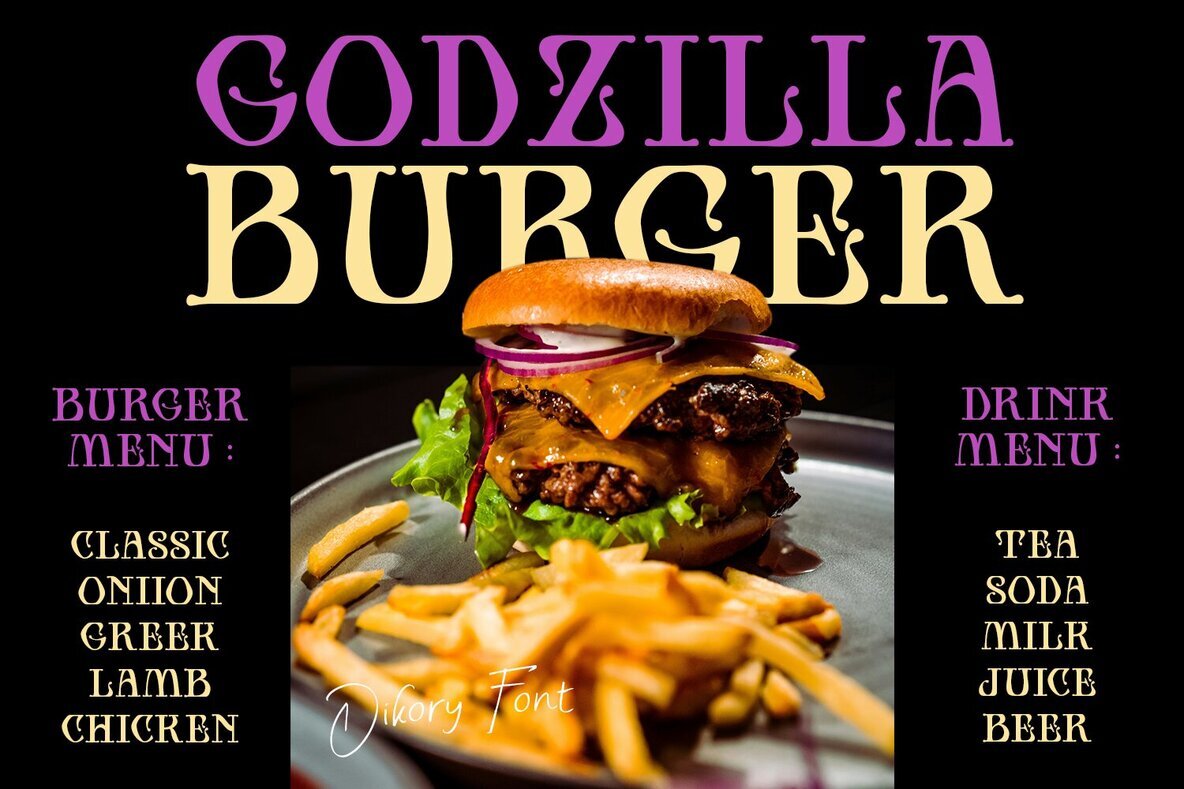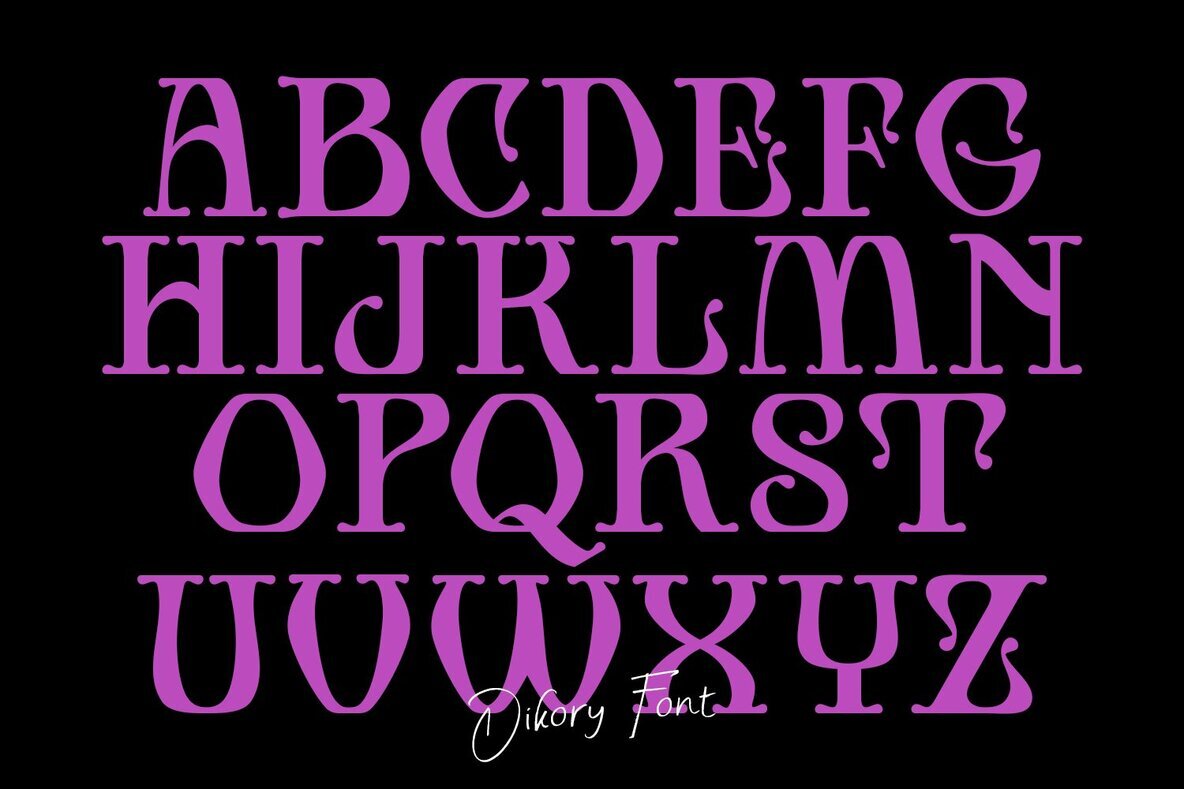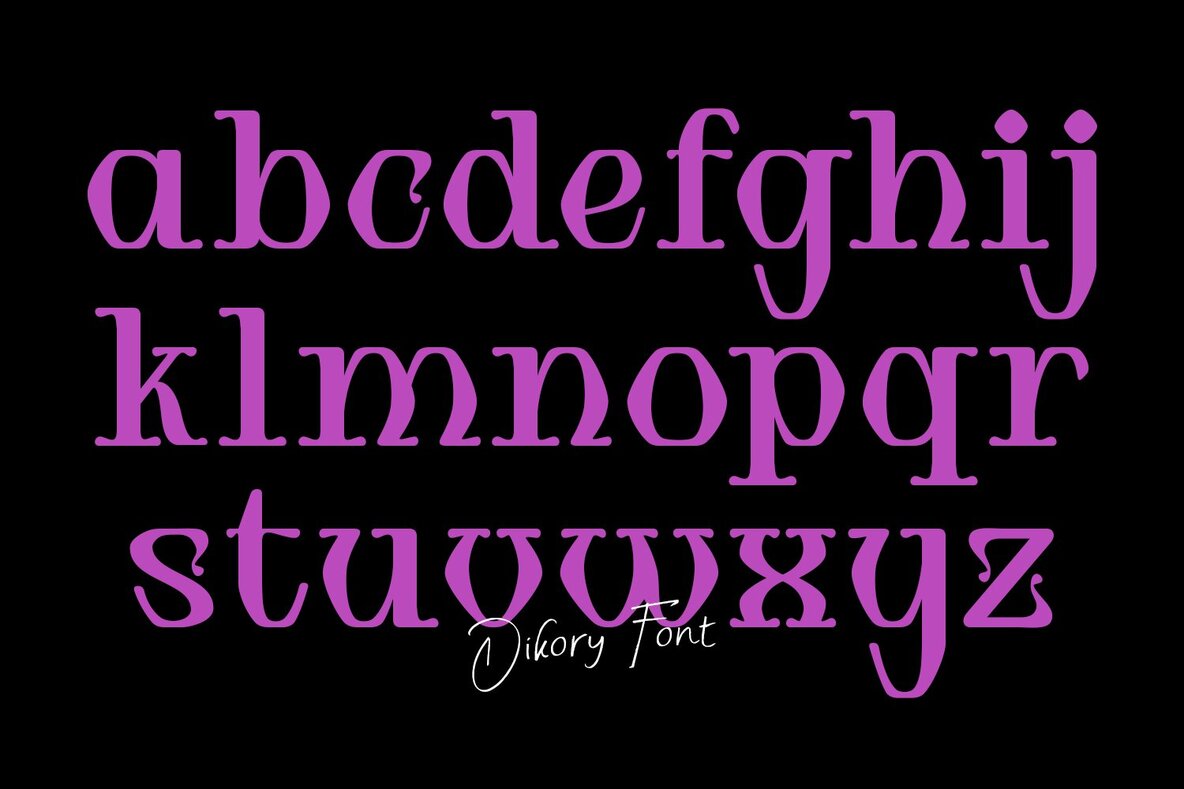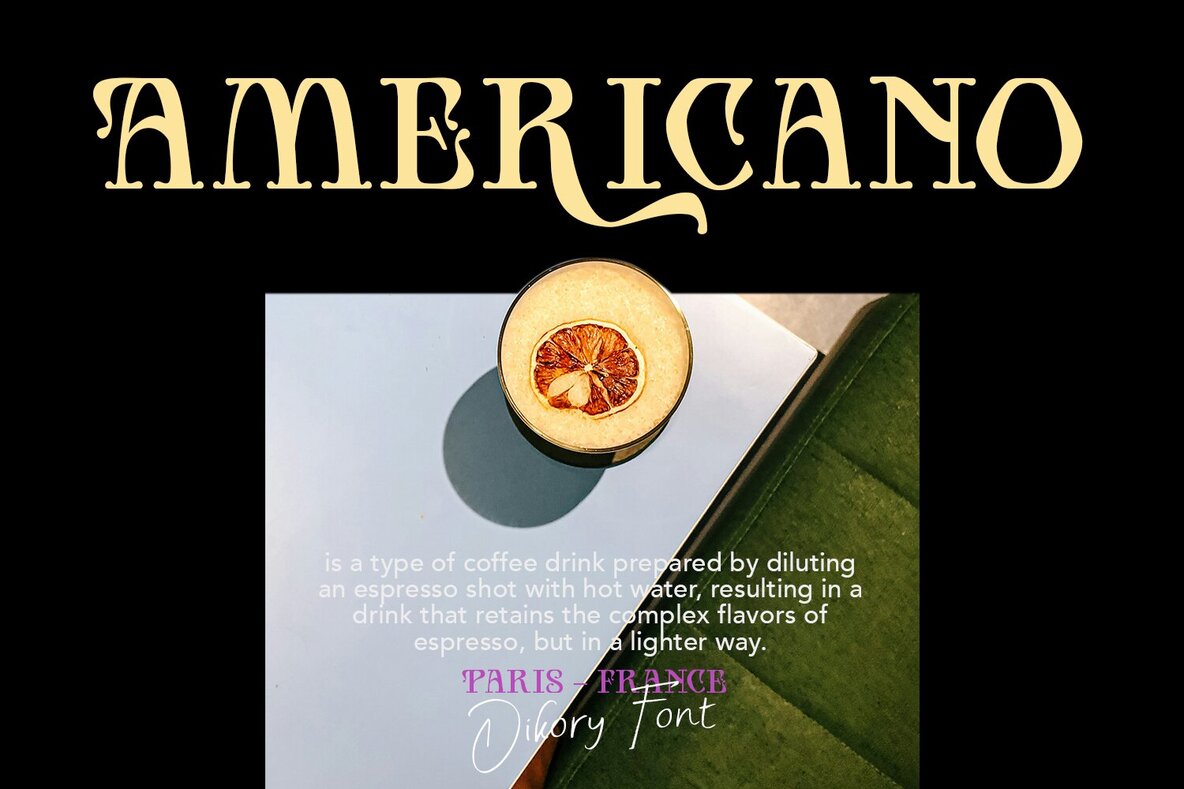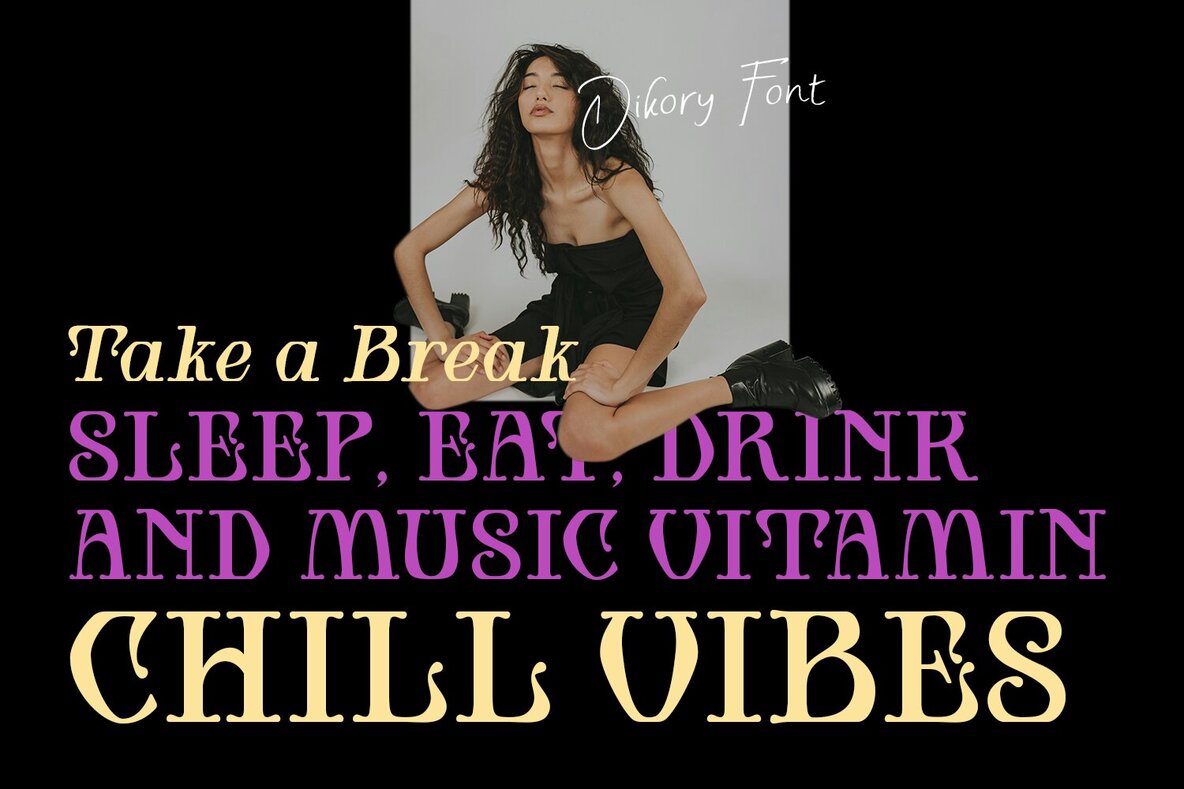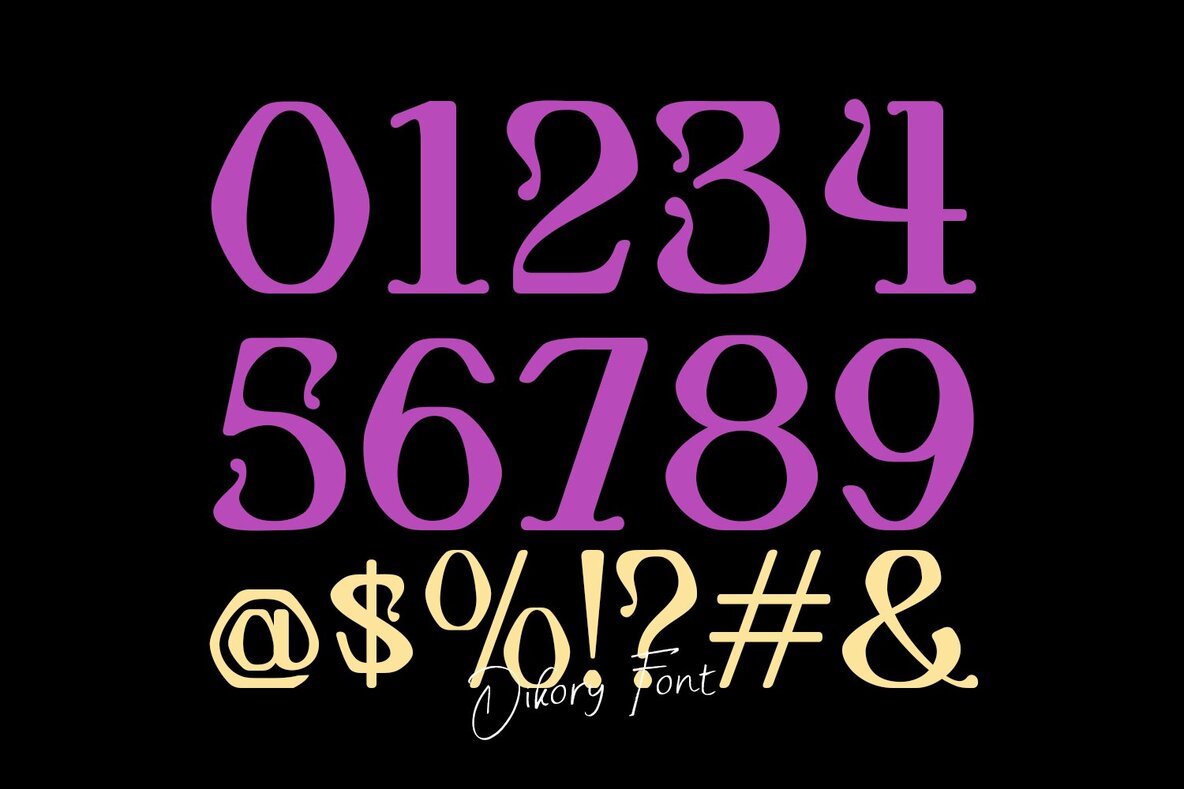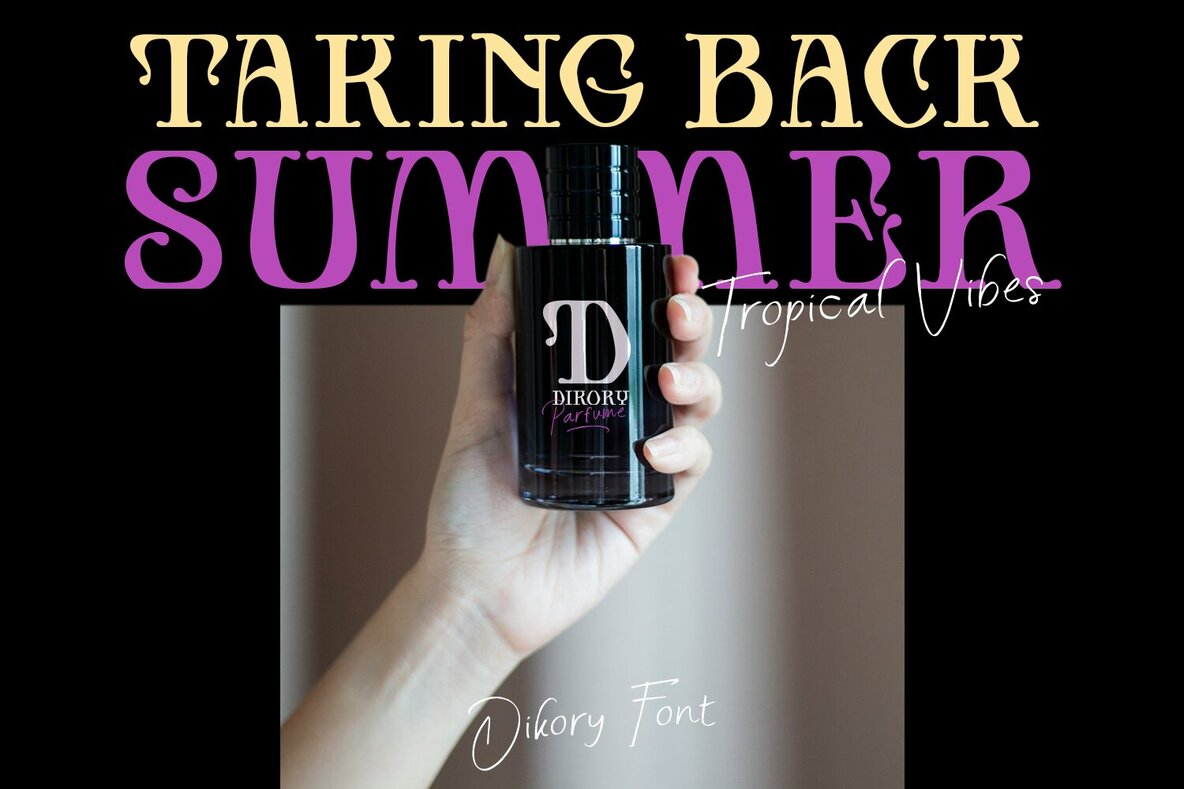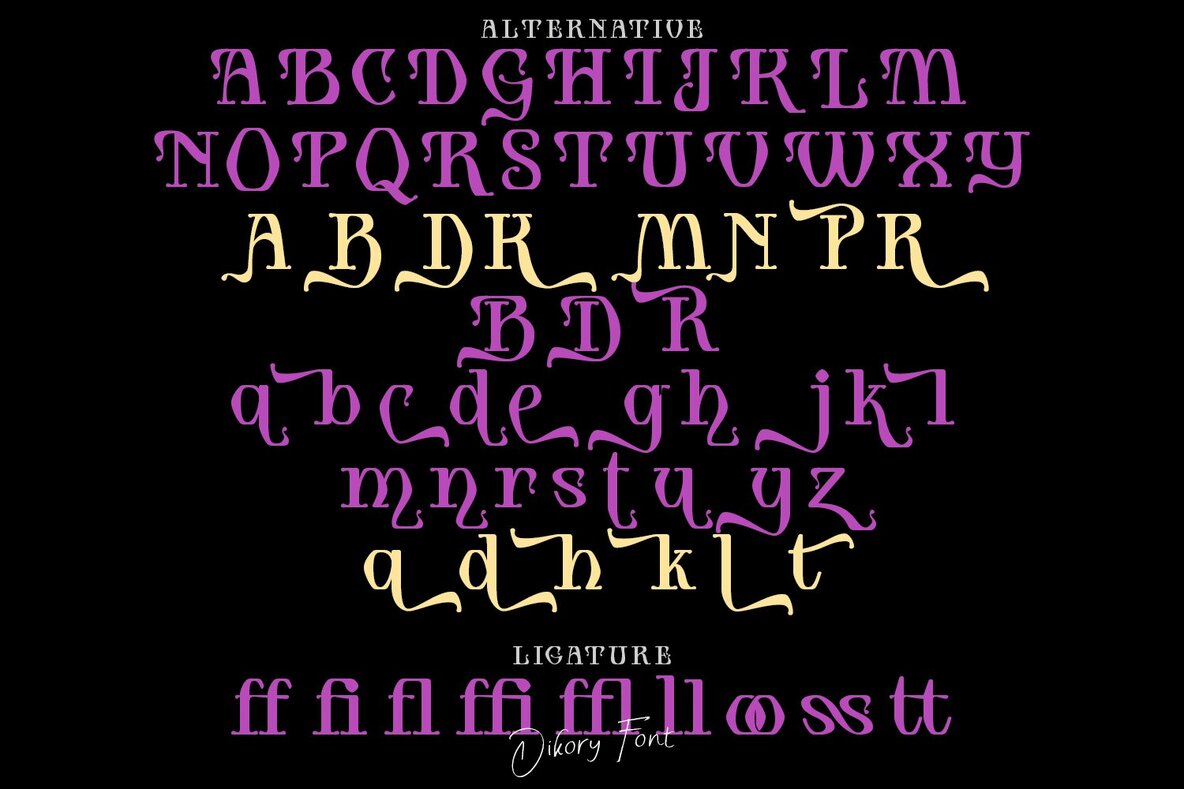
Dikory Font
Dikory Regular
Dikory by madeDeduk is a distinguished display serif that features a single weight. Its legibility and expressive shapes make it an excellent choice for a wide range of design projects.Dikory: Classic Display Serif with Expressive Shapes
Features of Dikory
Application Possibilities